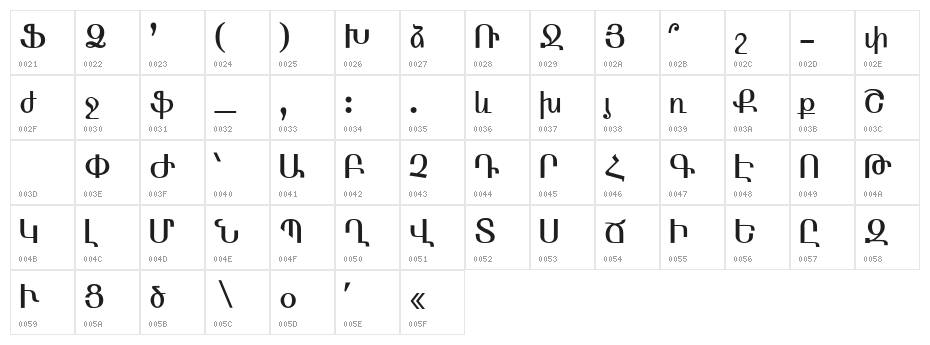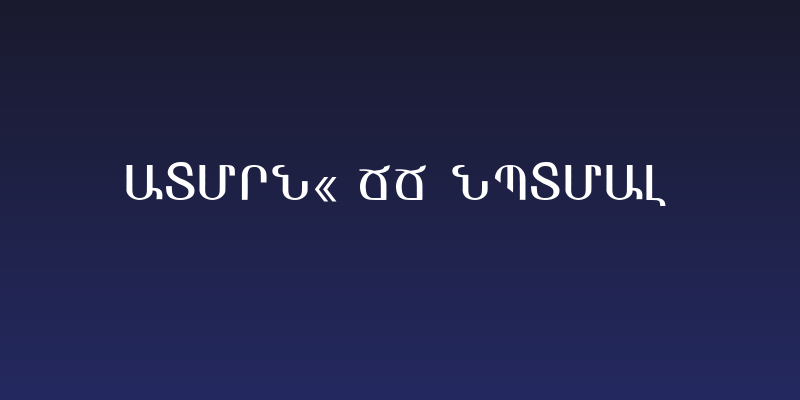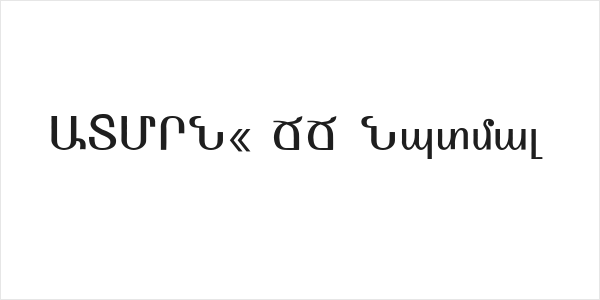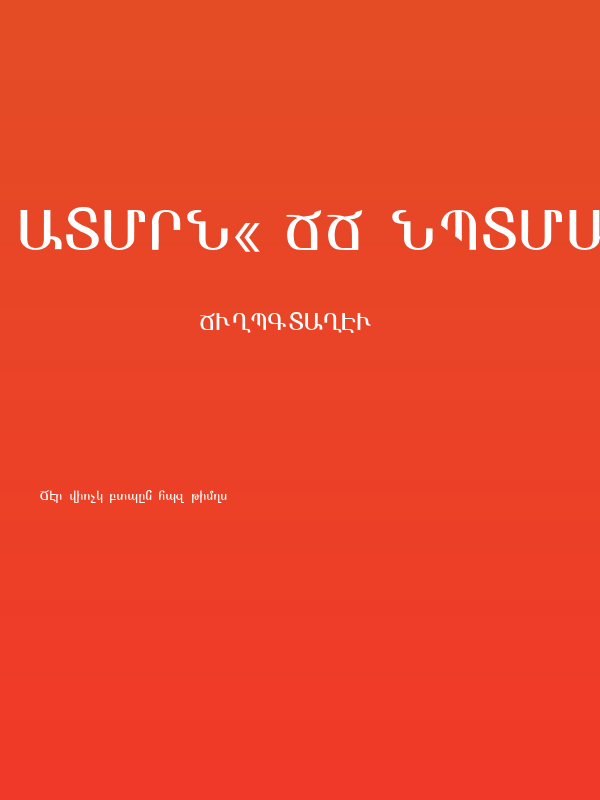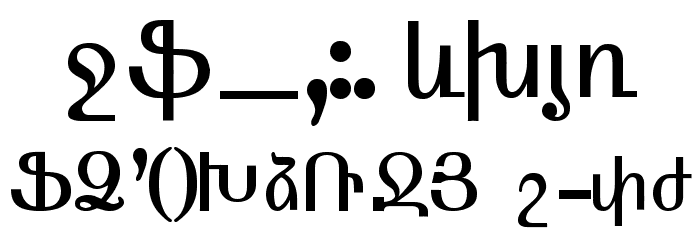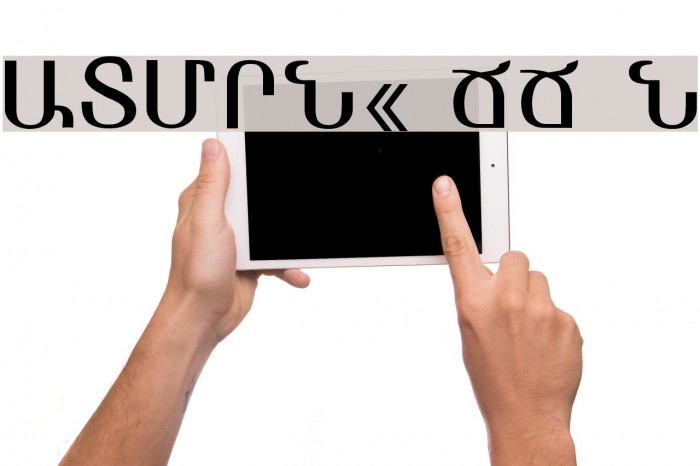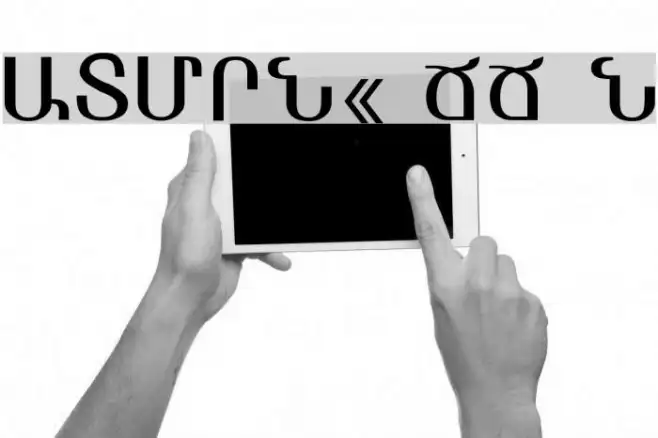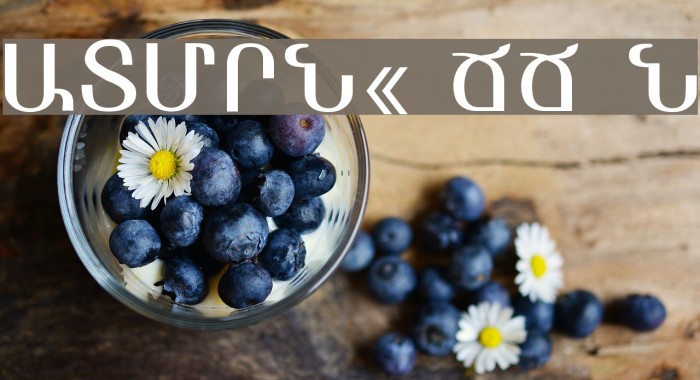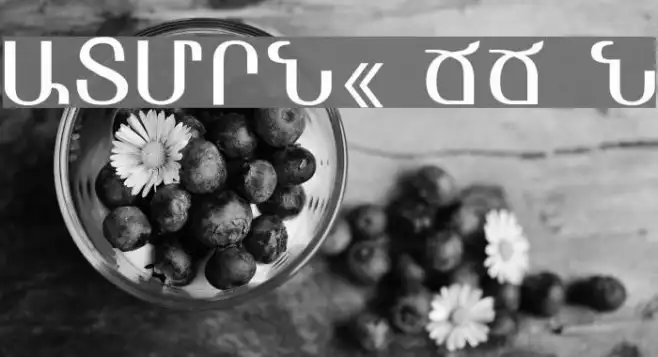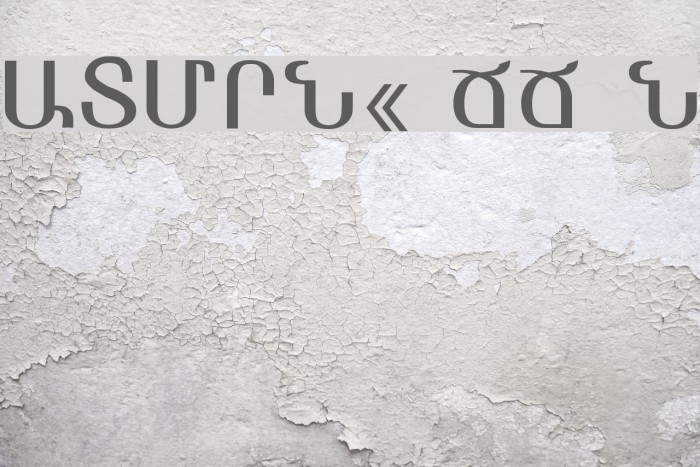
ARMEN_ TT Normal Font
ARMEN_ TT Normal Description
This font features a unique and modern design with a distinct Armenian script. The characters are bold and have a geometric structure, providing a contemporary feel. The strokes are consistent in width, offering a clean and uniform appearance. The font maintains a balance between traditional Armenian calligraphy and modern typographic aesthetics, making it versatile for various design applications. The characters are well-spaced, ensuring readability while maintaining an artistic flair. This font is suitable for projects that require a cultural touch with a modern twist.
| Use Case | Headlines, Logos, Cultural publications |
| Proposed Projects | Ideal for cultural publications, branding, posters, and digital media that require an Armenian script with a modern look. |